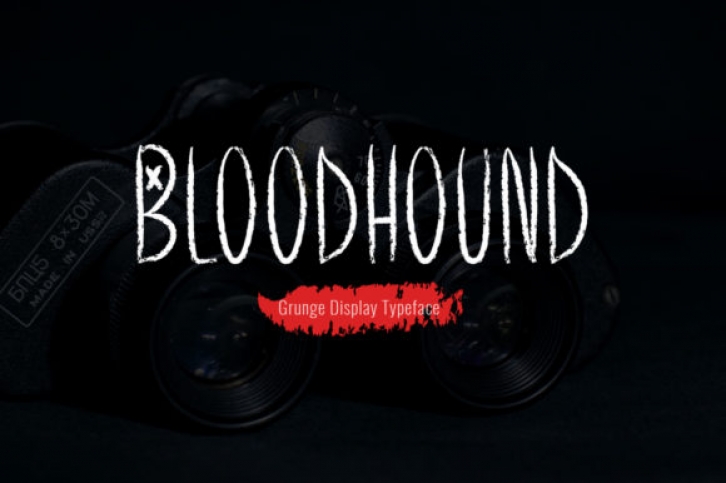
The Bloodhound is a brand new display font. It’s perfectly suited for stationery, logos, t-shirts, papers, print designs, website headers, photo frames, flyers, music covers, posters, image sliders and much more.